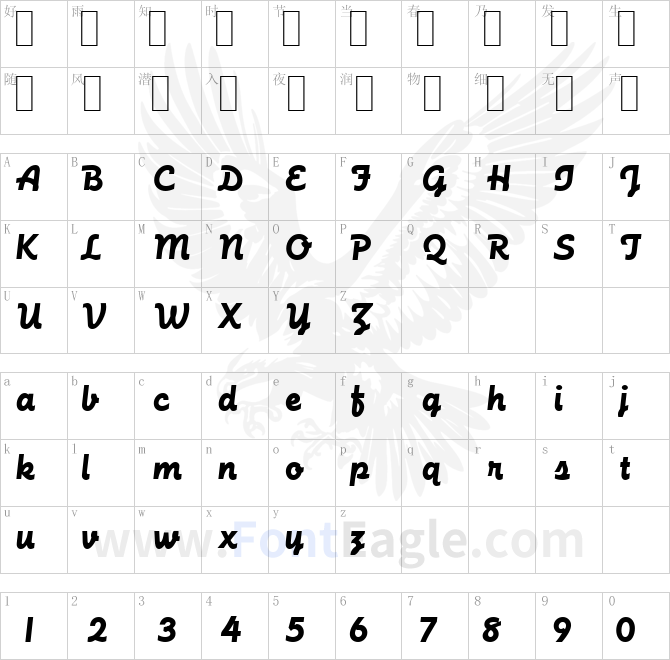
MC-Gilbert is a great font, widely used in graphic design, single-page menu design, poster design and other fields, and is deeply loved by designers.MC-Gilbert download.